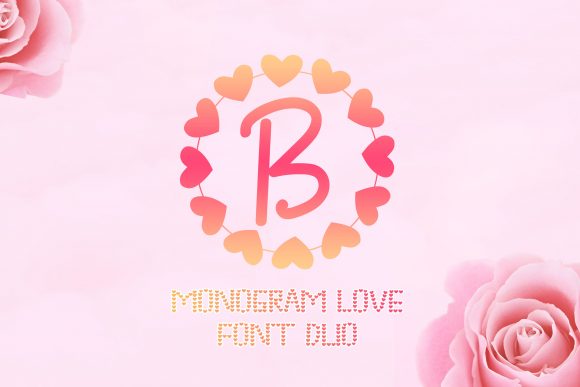
Prepare yourself to be swept off your feet by Monogram Love, a decorative font duo that exudes romance and elegance. This masterpiece by Handles Creative is meticulously designed to capture the essence of love, with hearts adorning each character like delicate ornaments. Get ready to add a touch of enchantment to your creative projects with Monogram Love.
Unlock the doors to a world of endless possibilities with Monogram Love. Whether you're a passionate designer, a creative entrepreneur, or a lover of beautiful fonts, this font duo will ignite your imagination and transform your designs into captivating works of art.
With Monogram Love, you'll discover a font that seamlessly blends vintage charm with a modern twist. Its intricate details and flowing lines will add a touch of sophistication to your logos, branding, invitations, social media posts, and any project that deserves a sprinkle of romance.
Monogram Love's versatility knows no bounds. Dive into a sea of creative applications, from heartfelt wedding invitations to enchanting branding designs. Let your imagination soar as you create stunning logos, eye-catching posters, and captivating social media graphics that leave a lasting impression.
Don't miss out on the opportunity to infuse your creative arsenal with the magic of Monogram Love. Embrace the beauty of love and elevate your designs to new heights. Step into a world where creativity and romance intertwine, and let Monogram Love be your guiding light.